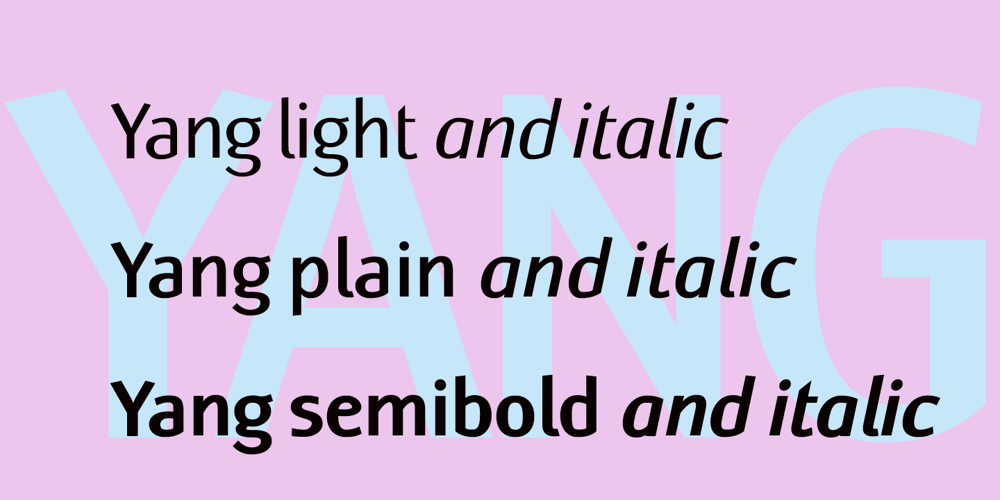
Yang
Yang font
Yang Font Family was designed by Gert Wiescher and published by Wiescher Design. Yang contains 6 styles and family package options. Yang is a new Sans typeface that has a little bit of Ying in it. This combination makes it a very versatile font. Just give it a try and you will see. Yours working on the “Ying”, Gert Wiescher